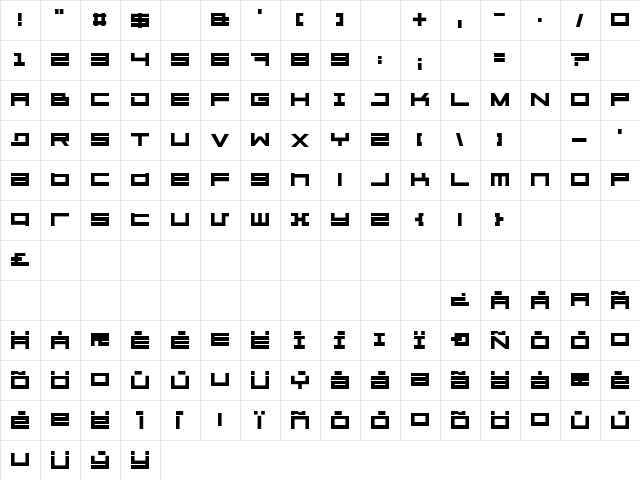
Megaton Regular
Design Context for Megaton Typeface
Megaton is a composed and adaptable typeface that performs quietly and consistently across a wide range of design contexts.